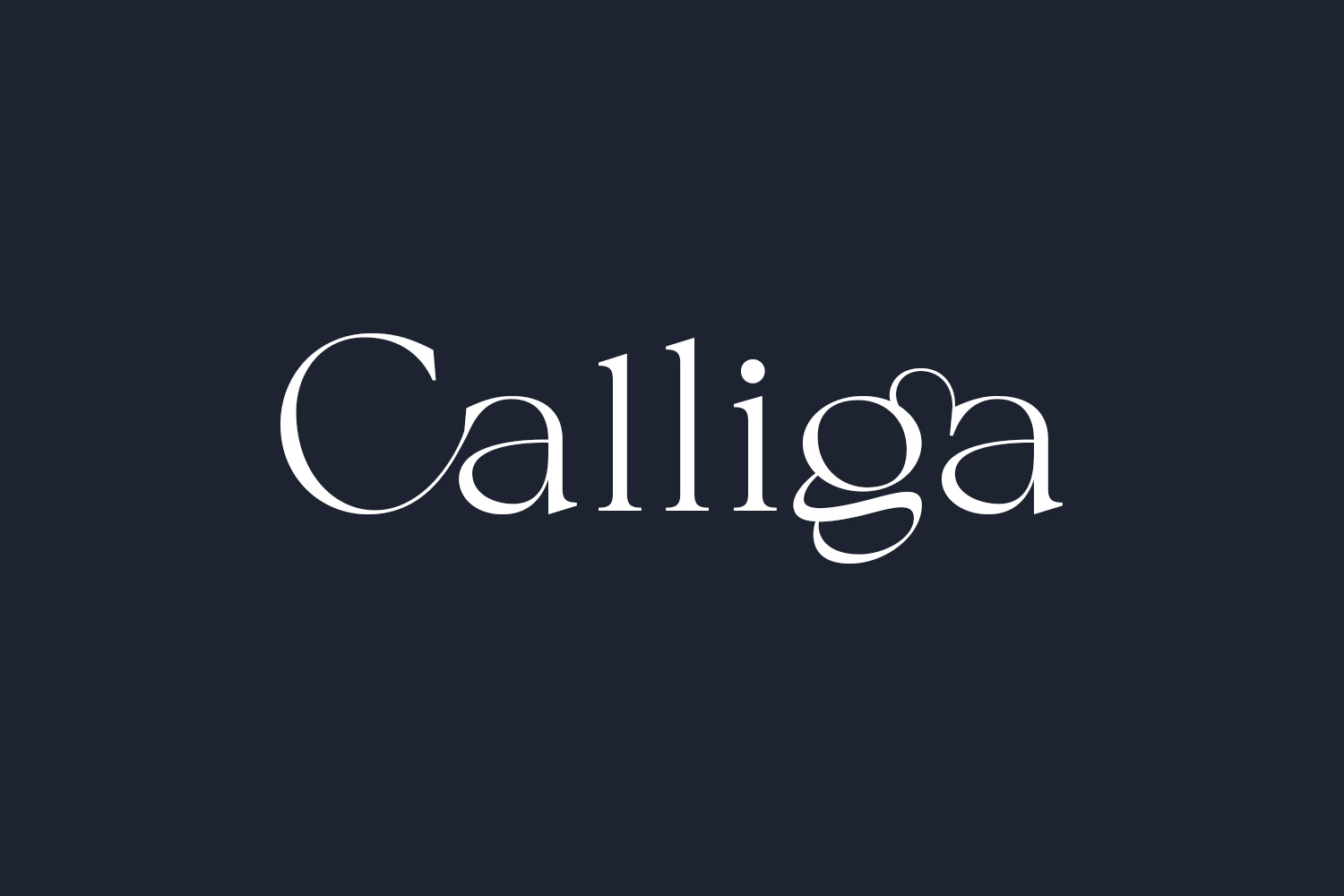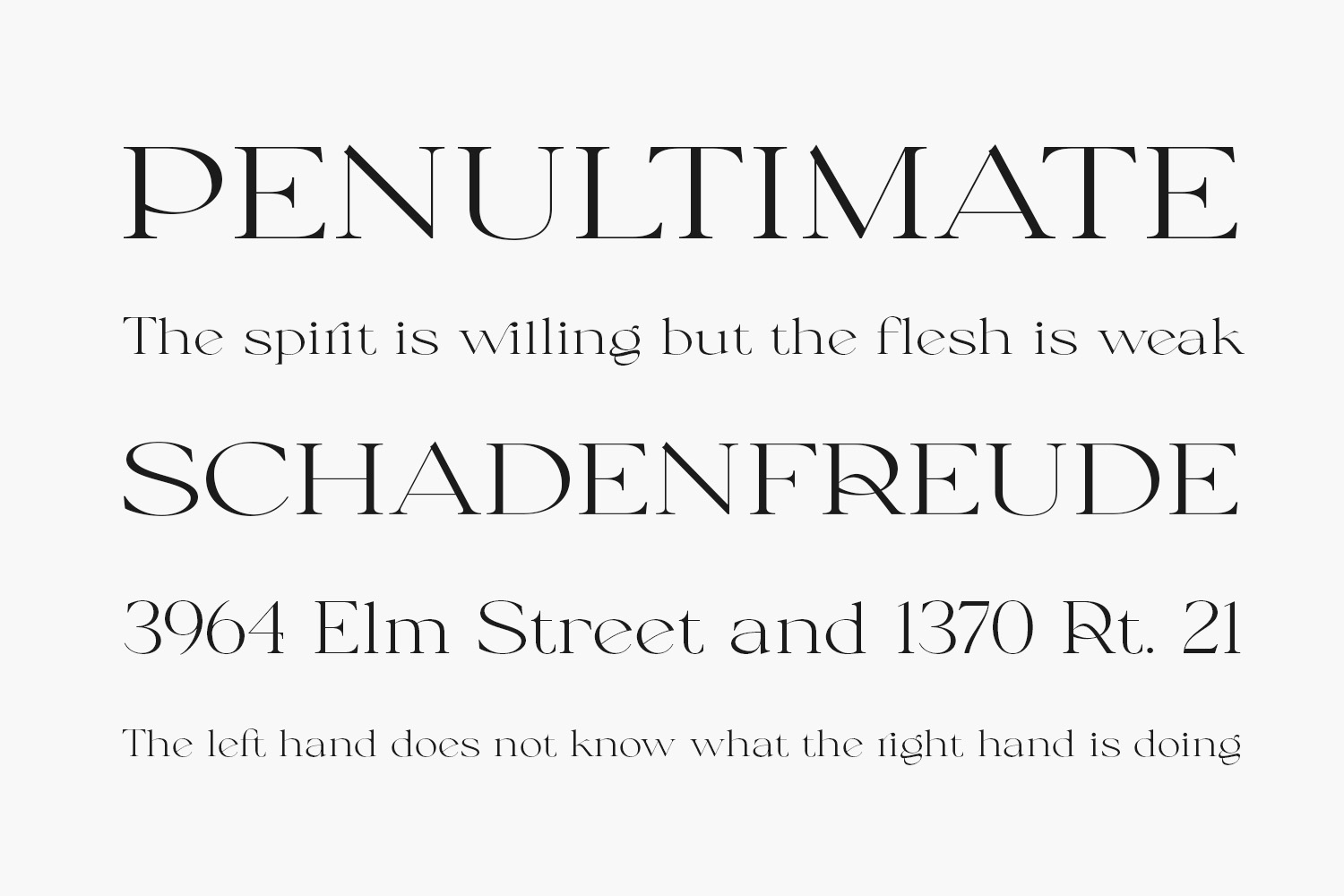
Calliga Free Font is a delicate, thin lettered and elegant serif font. Fall for its dainty style and use it to create gorgeous wedding invitations, beautiful stationary art, eye-catching social media posts, and much more. Calliga Free Font was designed by BrandSemut and is free for personal use only. Please purchase the full version for commercial use.